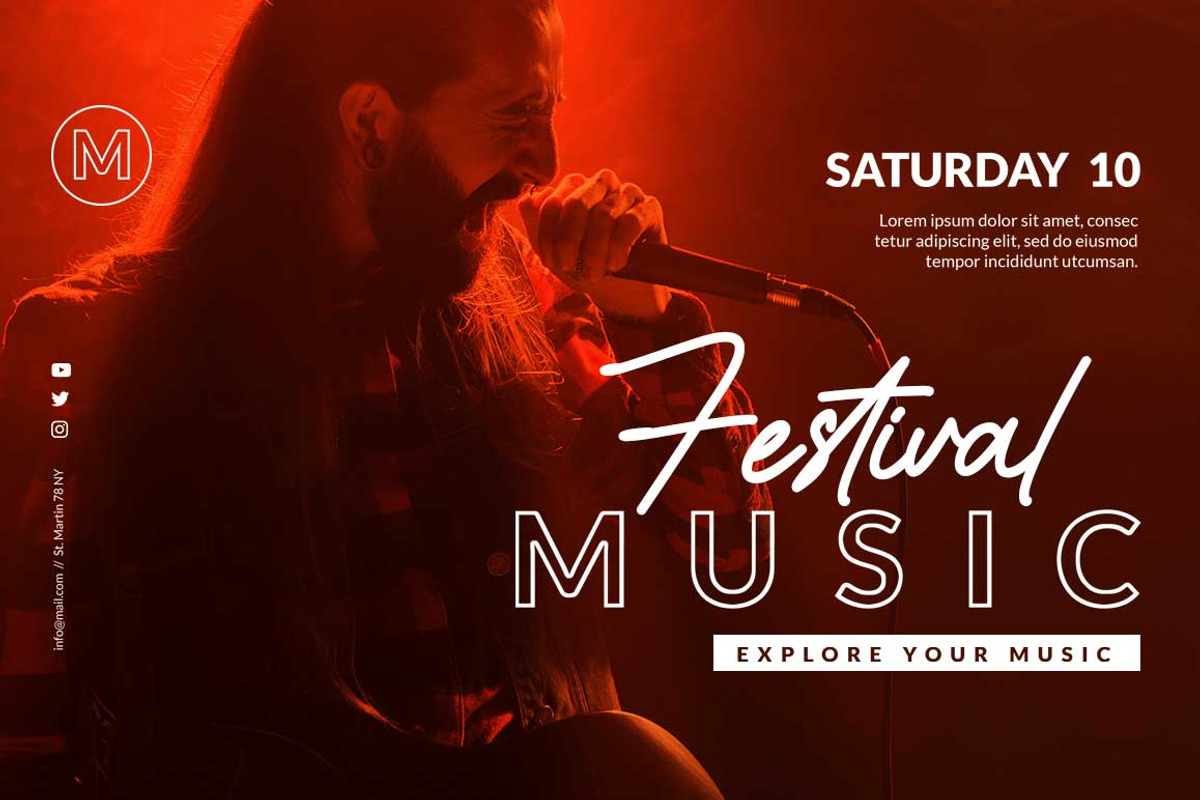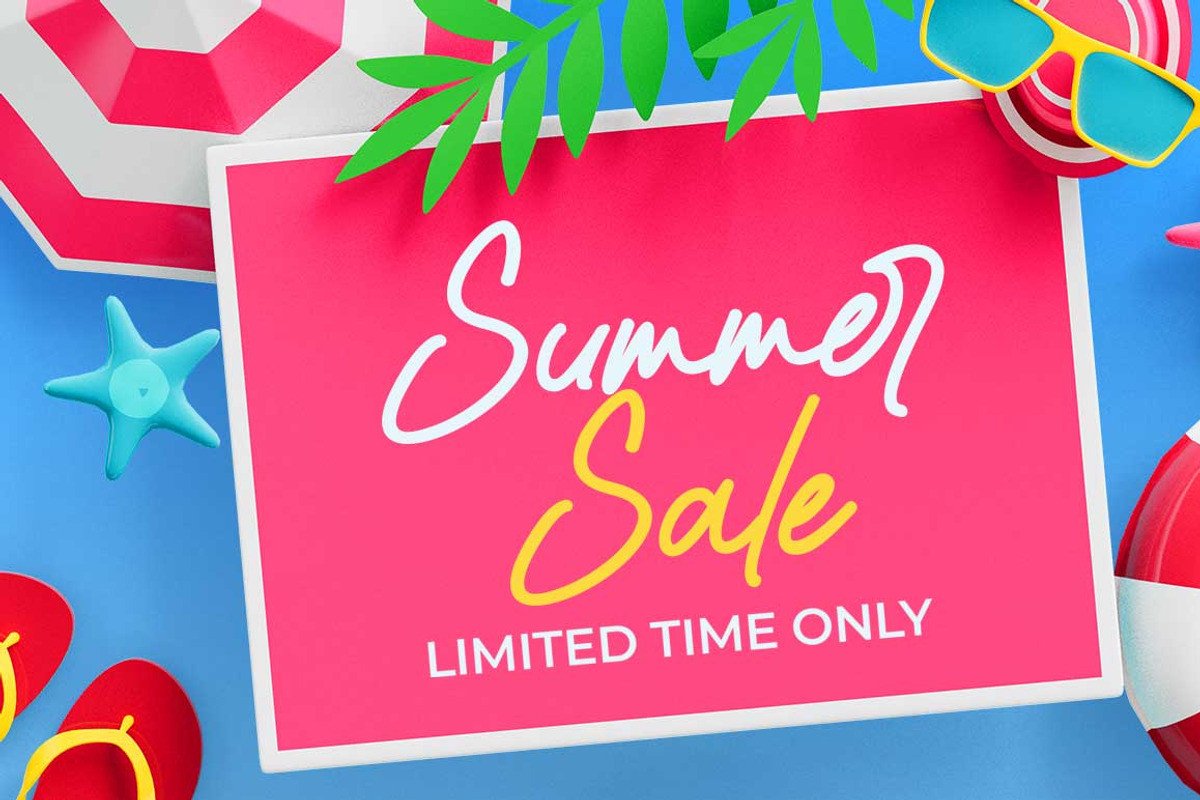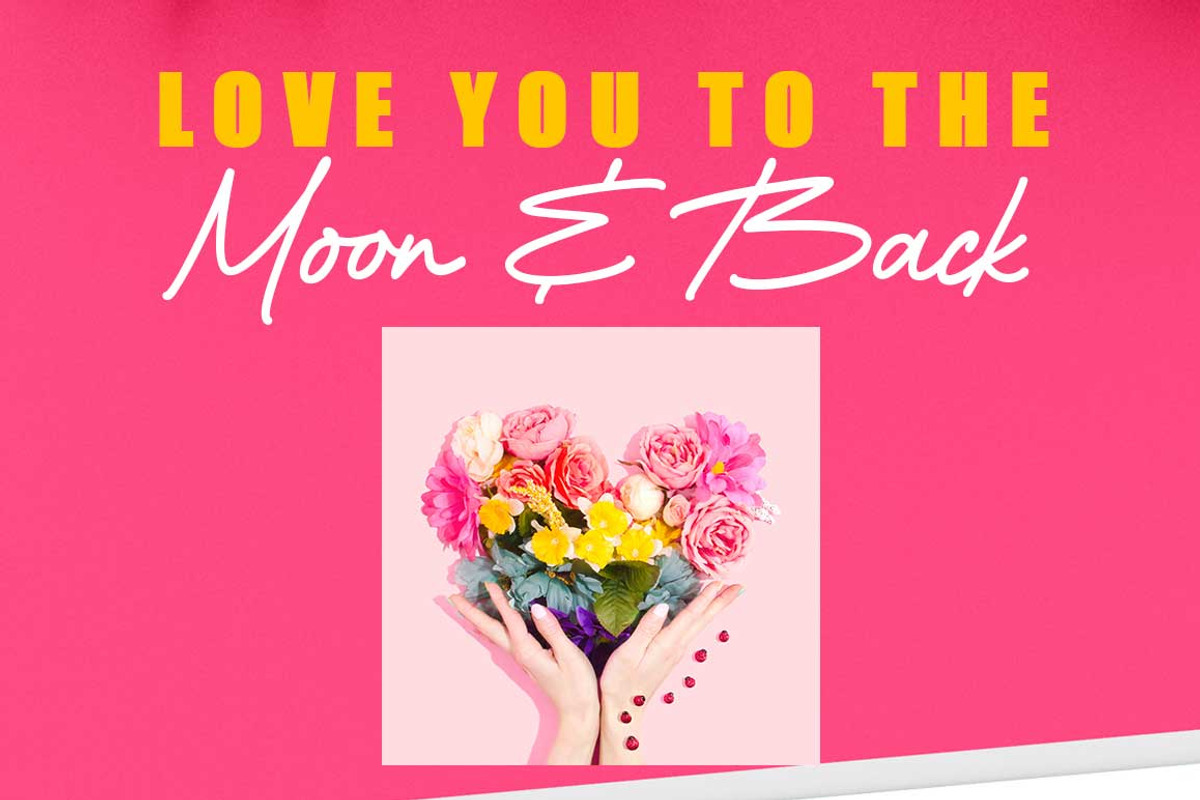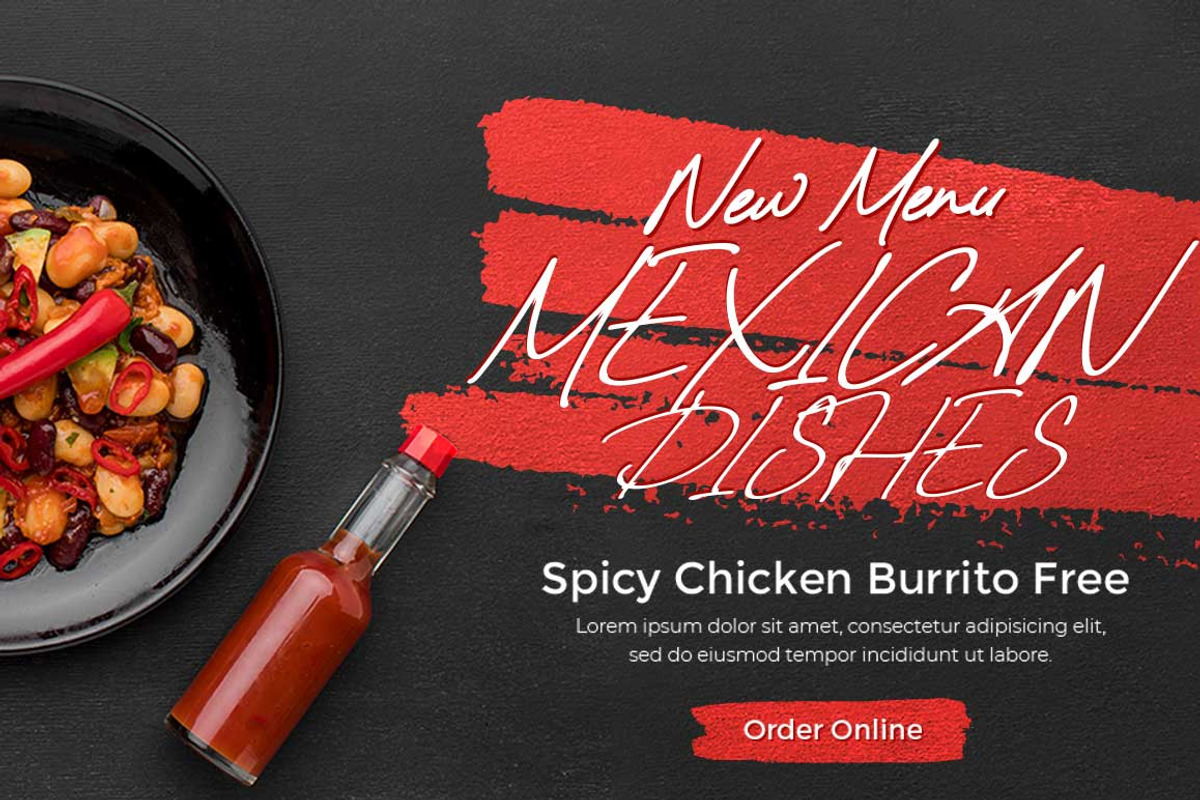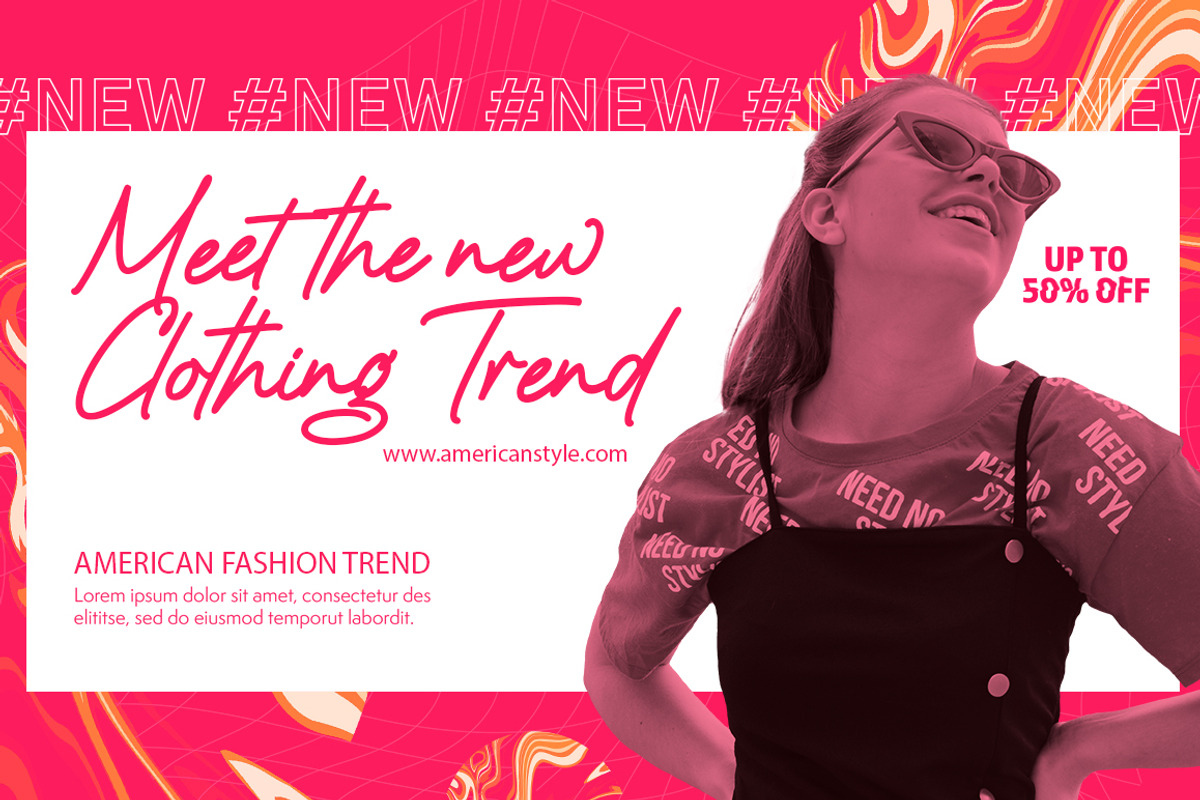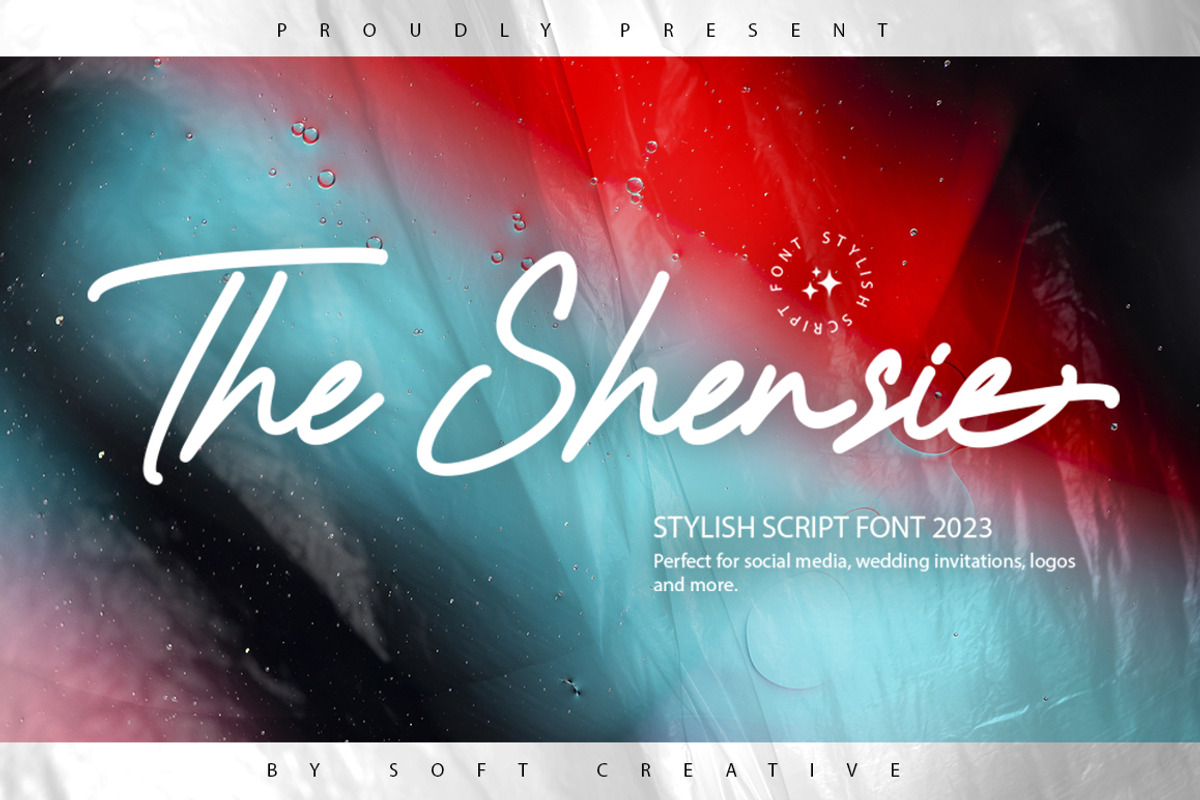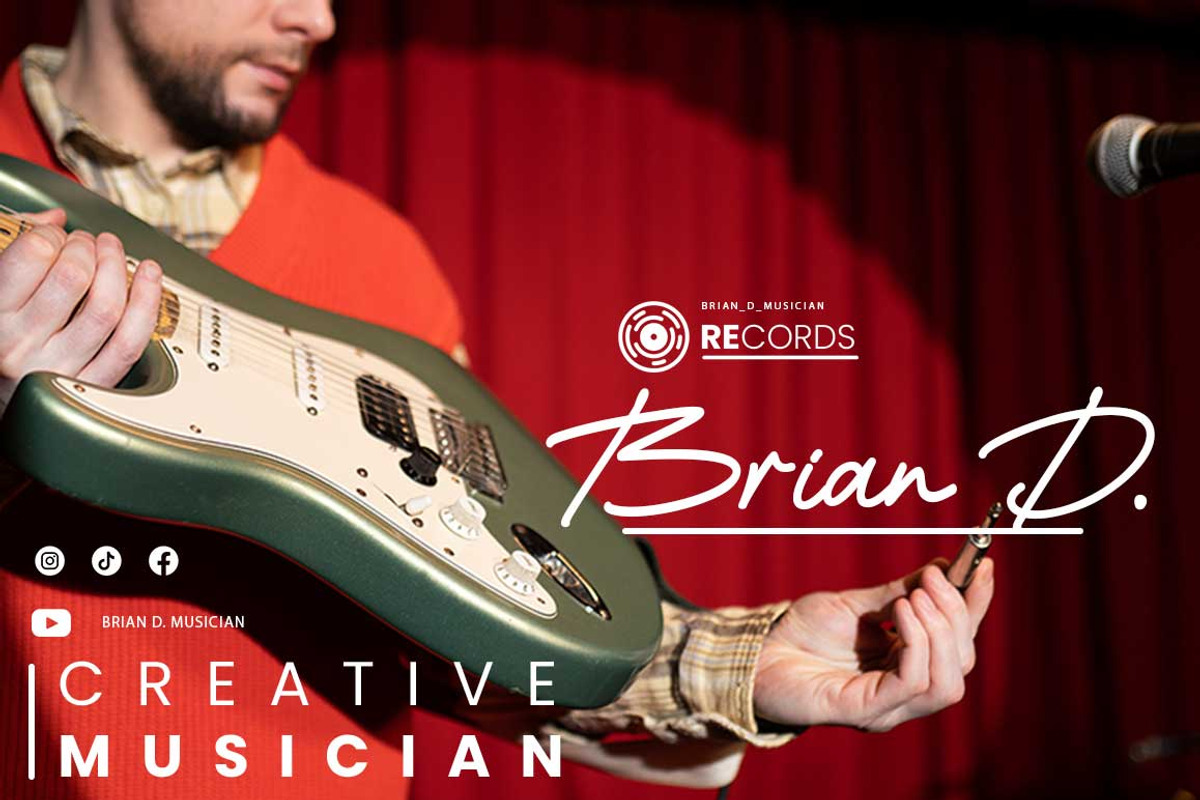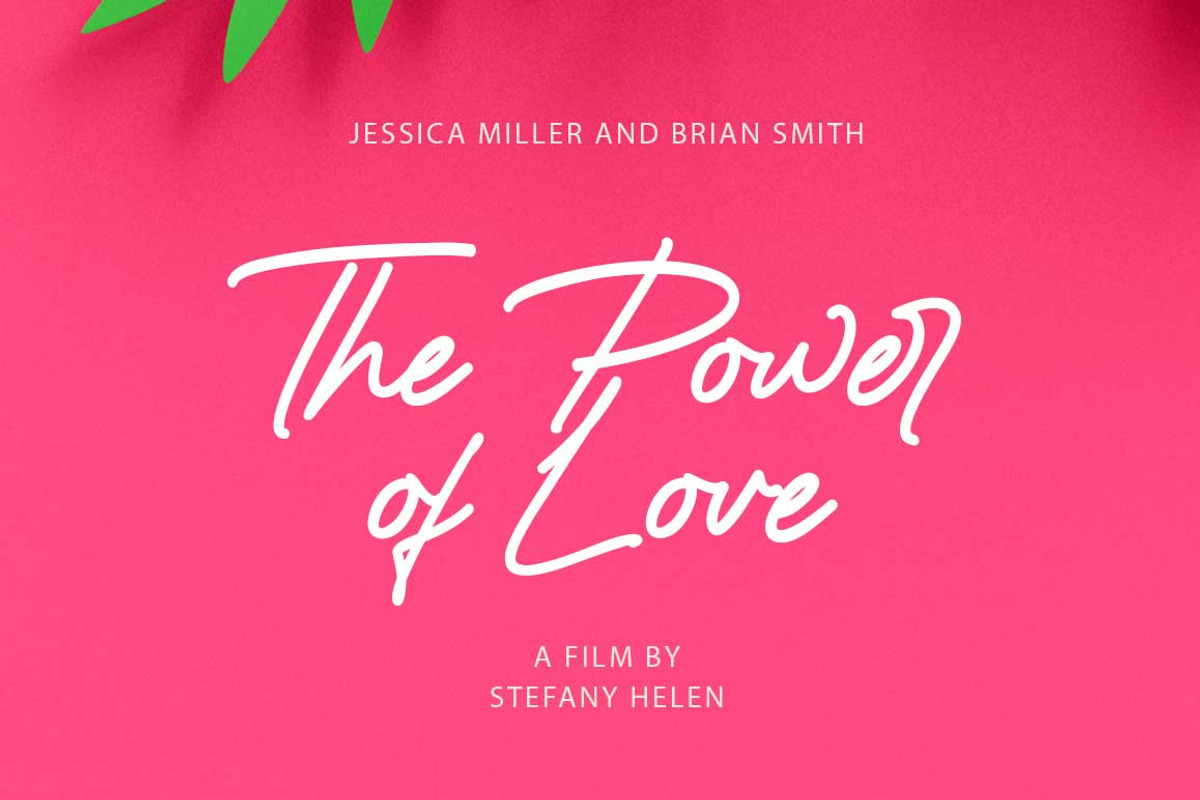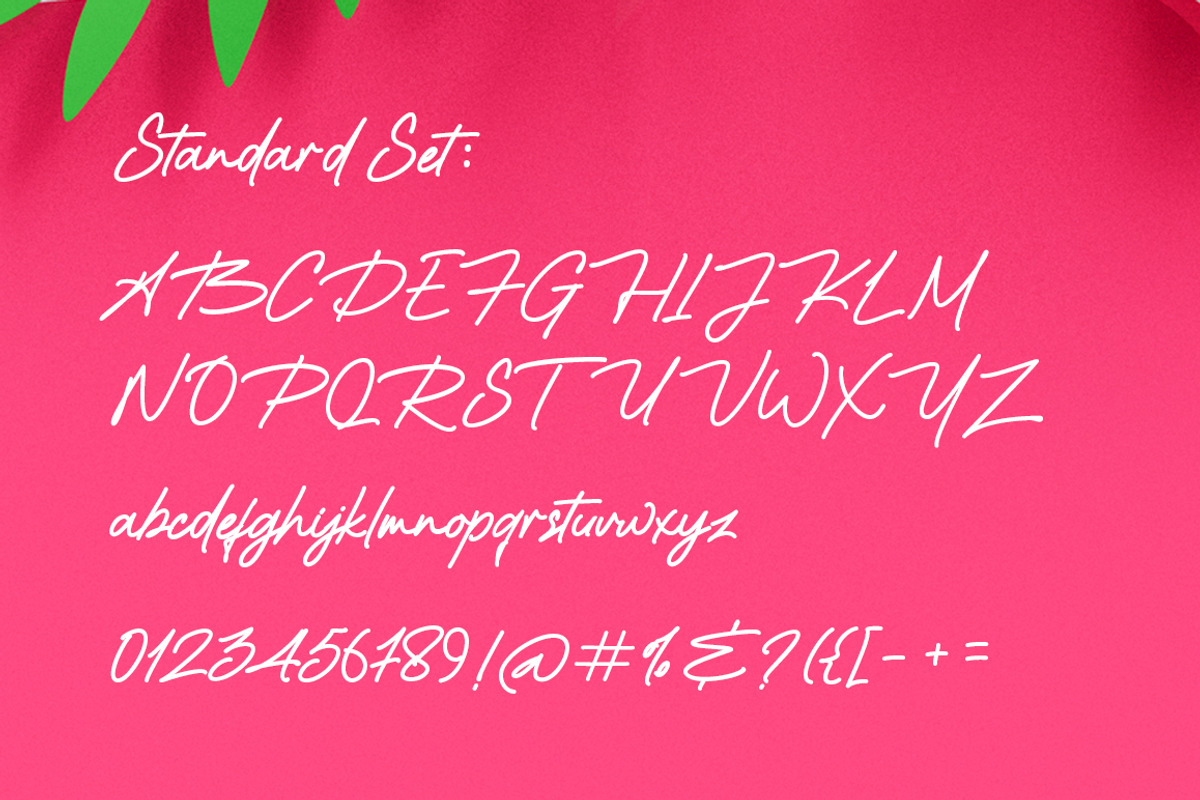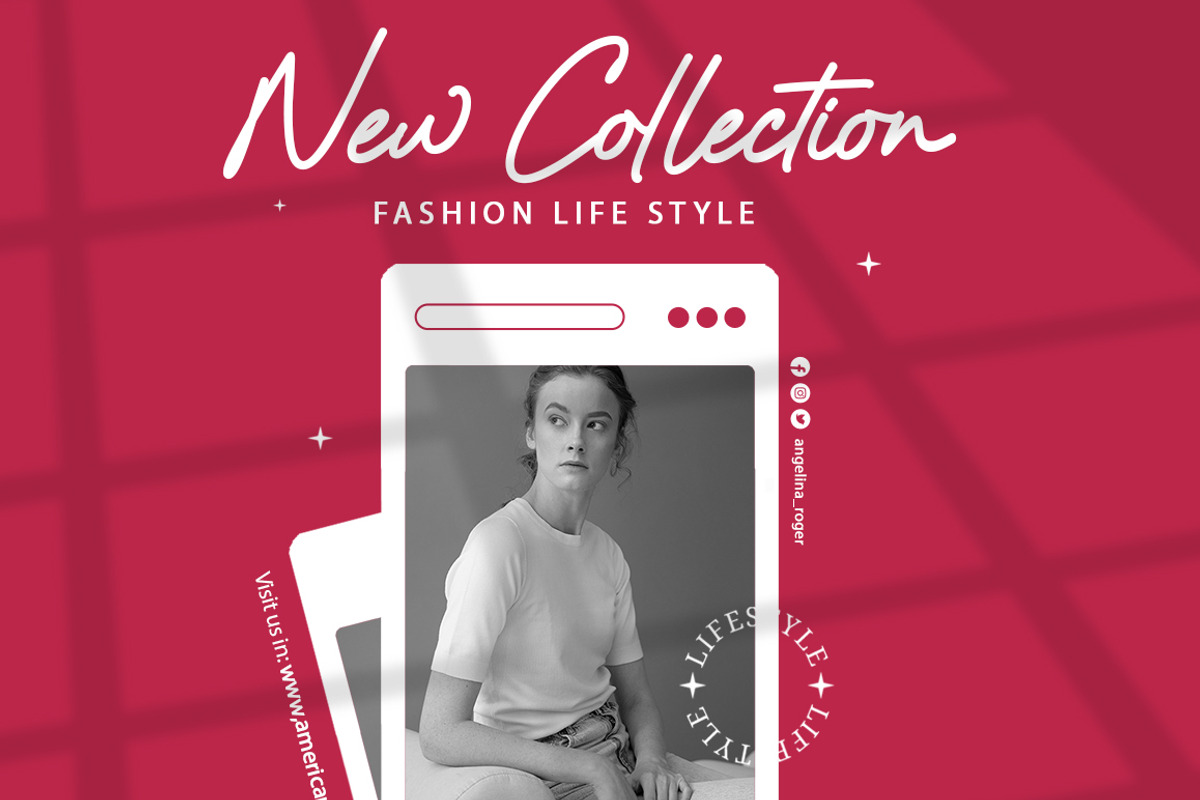
The Shensie
Introducing The Shensie. The Shensie Font, is a classic thin font with an italic style. Here you will get beautiful classic fonts. this font is available in several modern swirls that can make your work look elegant, sweet and perfect.
With this style,this font would be perfect for logos, branding projects, household designs utensils, product packaging, mugs, quotes, posters, shopping bags, logo, t-shirt, book cover, business card, invitation card, greeting cards, and all your other beautiful projects.